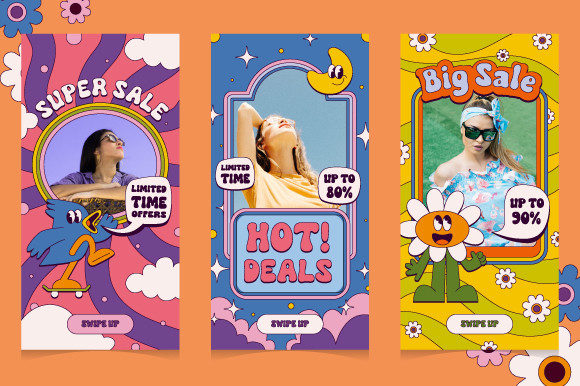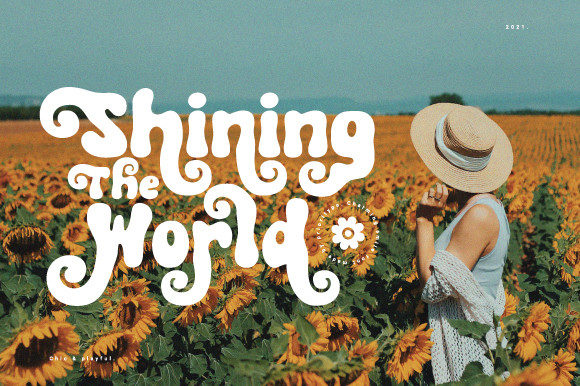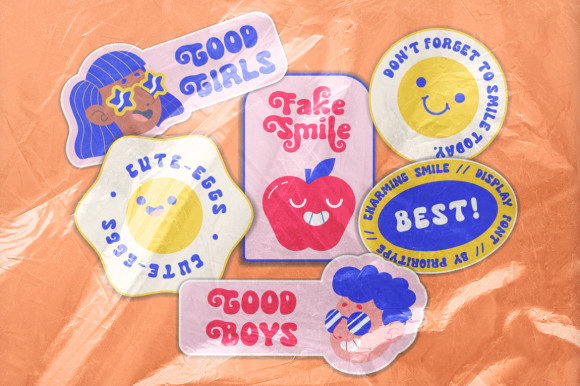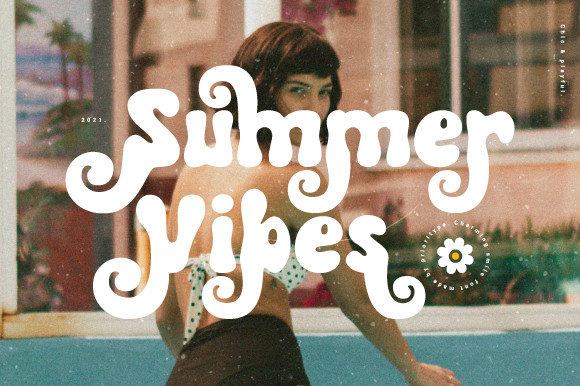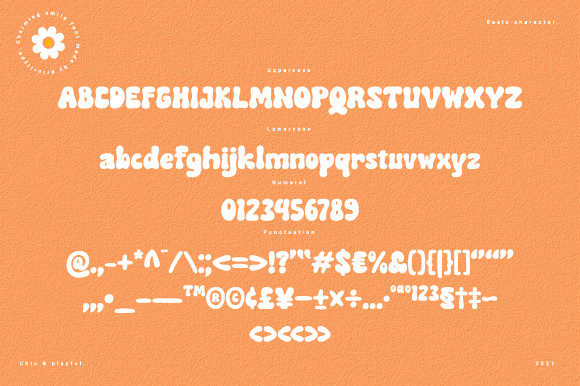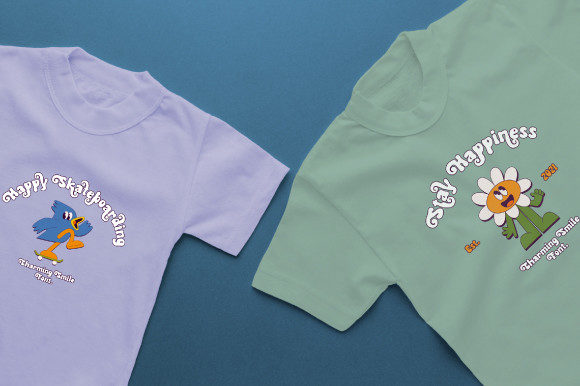
Introducing Charming Smile Font: Add a Touch of Vintage Charm to Your Designs
Are you looking for a font that can add a dash of personality and whimsy to your designs? Look no further than the Charming Smile Font! This beautiful and fun display font is perfect for crafty projects, and its vintage style is sure to capture the hearts of designers and crafters alike.
What Makes Charming Smile Font So Special?
Charming Smile Font is a stunning display font that boasts a unique blend of playfulness and sophistication. Its vintage style is reminiscent of classic designs from the past, but with a modern twist that makes it perfect for contemporary projects. Whether you’re working on apparel designs, social media posts, cover designs, stickers, or any other crafty project, this font is sure to make your work stand out.
Key Features of Charming Smile Font
- Vintage Style: Charming Smile Font features a beautiful vintage style that’s perfect for adding a touch of nostalgia to your designs.
- PUA Encoded: This font is PUA encoded, which means you can access all of the glyphs and swashes with ease. This makes it simple to customize your designs and add your own personal touch.
- Fun and Playful: Charming Smile Font is a fun and playful font that’s perfect for designs that require a bit of personality.
- Highly Versatile: This font is perfect for a wide range of crafty projects, including apparel designs, social media posts, cover designs, stickers, and more.
Charming Smile Font is a dream come true for designers and crafters who are looking for a font that can add a touch of personality to their work. Whether you’re a professional designer or a hobbyist crafter, this font is sure to inspire you to create something truly special. With its vintage style and playful vibe, Charming Smile Font is perfect for:
- Apparel Designs: Add a touch of personality to your t-shirt designs, hoodies, and other apparel with Charming Smile Font.
- Social Media Posts: Make your social media posts stand out with this fun and playful font.
- Cover Designs: Create eye-catching cover designs for books, magazines, and other publications with Charming Smile Font.
- Stickers and Labels: Add a touch of personality to your stickers and labels with this beautiful font.
Why Choose Charming Smile Font?
With so many fonts to choose from, why should you choose Charming Smile Font? Here are just a few reasons why this font stands out from the crowd:
- Unique Style: Charming Smile Font features a unique vintage style that’s sure to capture the hearts of designers and crafters.
- Ease of Use: This font is PUA encoded, which makes it easy to access all of the glyphs and swashes.
- Highly Versatile: Charming Smile Font is perfect for a wide range of crafty projects, from apparel designs to social media posts.
| Font Name | Charming Smile Font |
| Author | Prioritype |